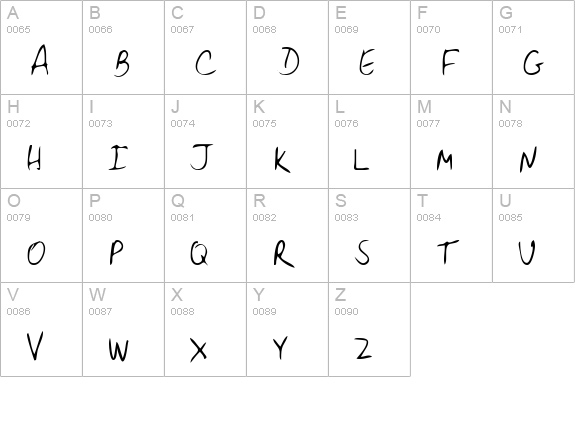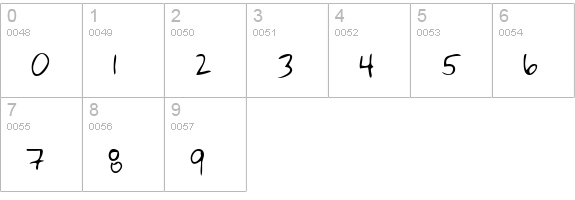
RoydensHand Regular Font Details
RoydensHand Regular is the standard, neutral variant in the RoydensHand typeface family \xE2\x80\x94 well suited to general body text, paragraphs, and standard typographic work.
RoydensHand Regular font is a charming and versatile typeface that exudes a sense of warmth and friendliness. With its elegant handwritten style, this font is perfect for adding a personal touch to your designs. Whether you're working on invitations, greeting cards, or branding materials, RoydensHand Regular is sure to make your text stand out. The best part? RoydensHand Regular font is available for free download at FontsMarket.com. This means you can easily access this beautiful font and use it in your projects without any cost. Take advantage of this amazing offer and enhance your designs with the unique charm of RoydensHand Regular font today.